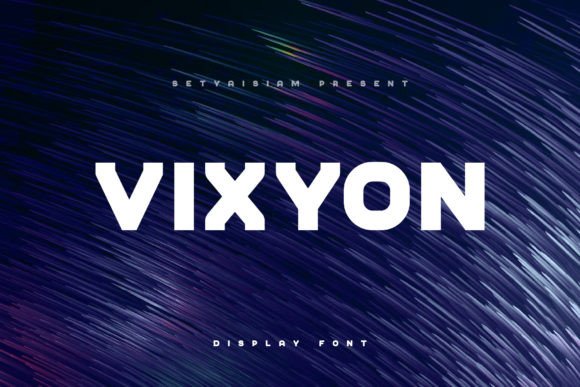
**Introducing Vixyon Font: The Font That Will Make Your Designs Pop!**
Are you ready to elevate your designs to the next level? Look no further than Vixyon Font, the bold, all-caps display font that will make your creations stand out from the crowd.
Vixyon Font is the perfect font for making a statement. Whether you're creating a stunning logo, a captivating social media post, or an eye-catching website, Vixyon Font will help you achieve the perfect look.
With its trendy and modern style, Vixyon Font is the perfect choice for any project that needs a touch of personality. It's also incredibly versatile, so you can use it for a wide range of purposes, from creating custom t-shirts to designing unique invitations.
But what really sets Vixyon Font apart is its emotional impact. This font is designed to evoke a sense of excitement and energy, making it the perfect choice for projects that need to capture attention and make a lasting impression.
**Here are just a few of the ways you can use Vixyon Font:**
* Create stunning logos that will make your brand stand out
* Design eye-catching social media posts that will get your followers talking
* Create unique invitations and greeting cards that will wow your friends and family
* Make custom t-shirts, mugs, and other merchandise that will show off your style